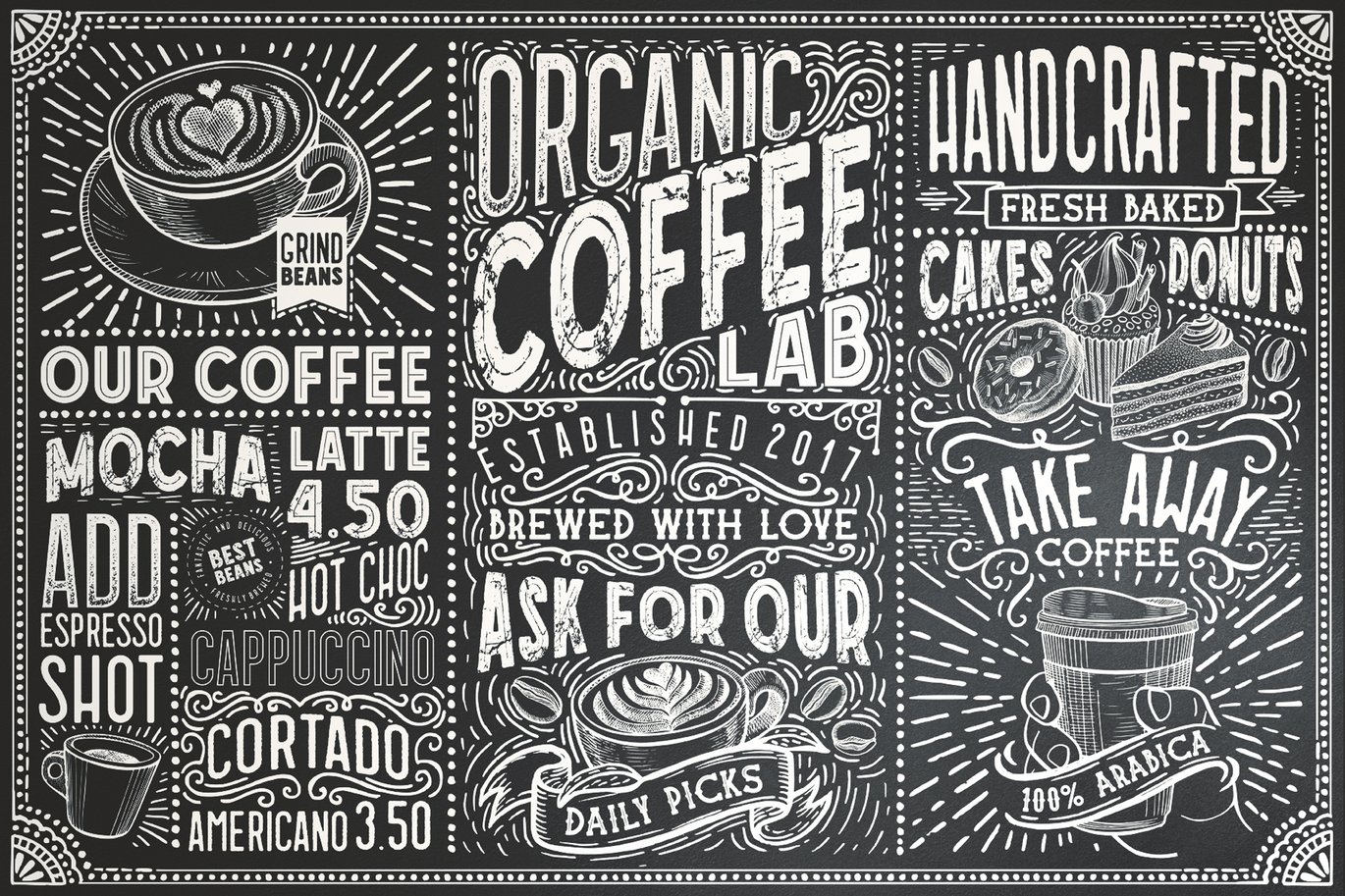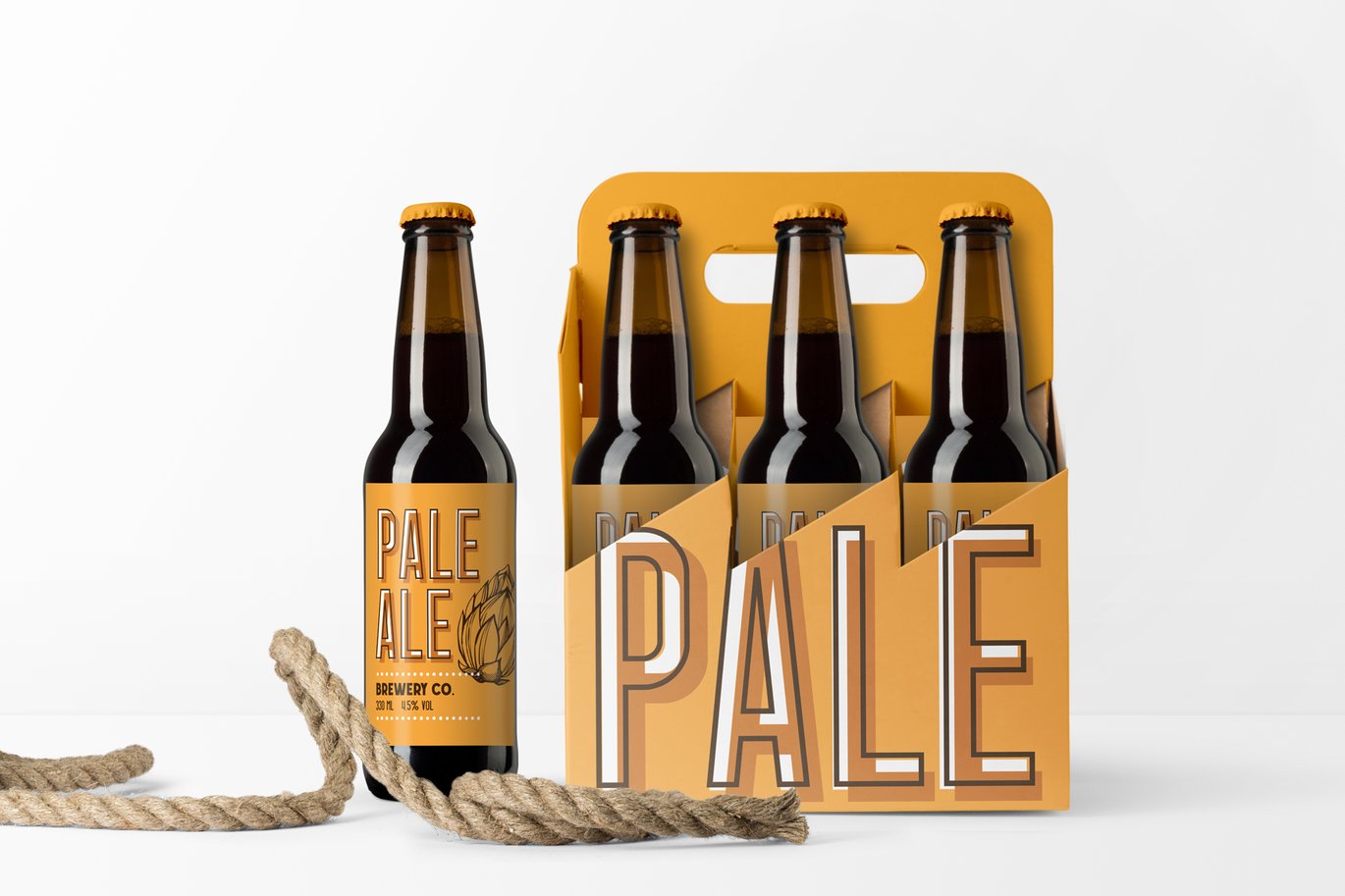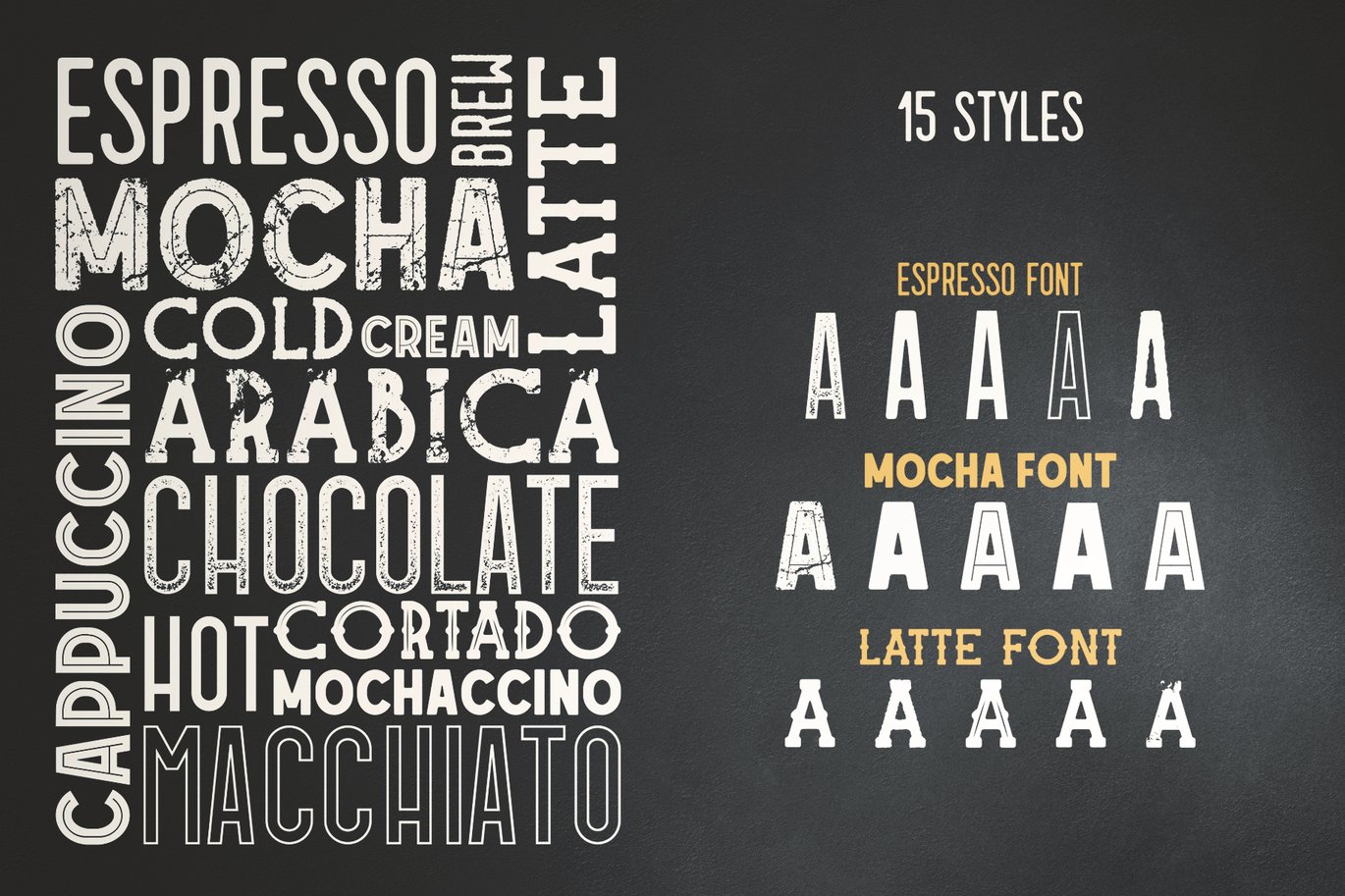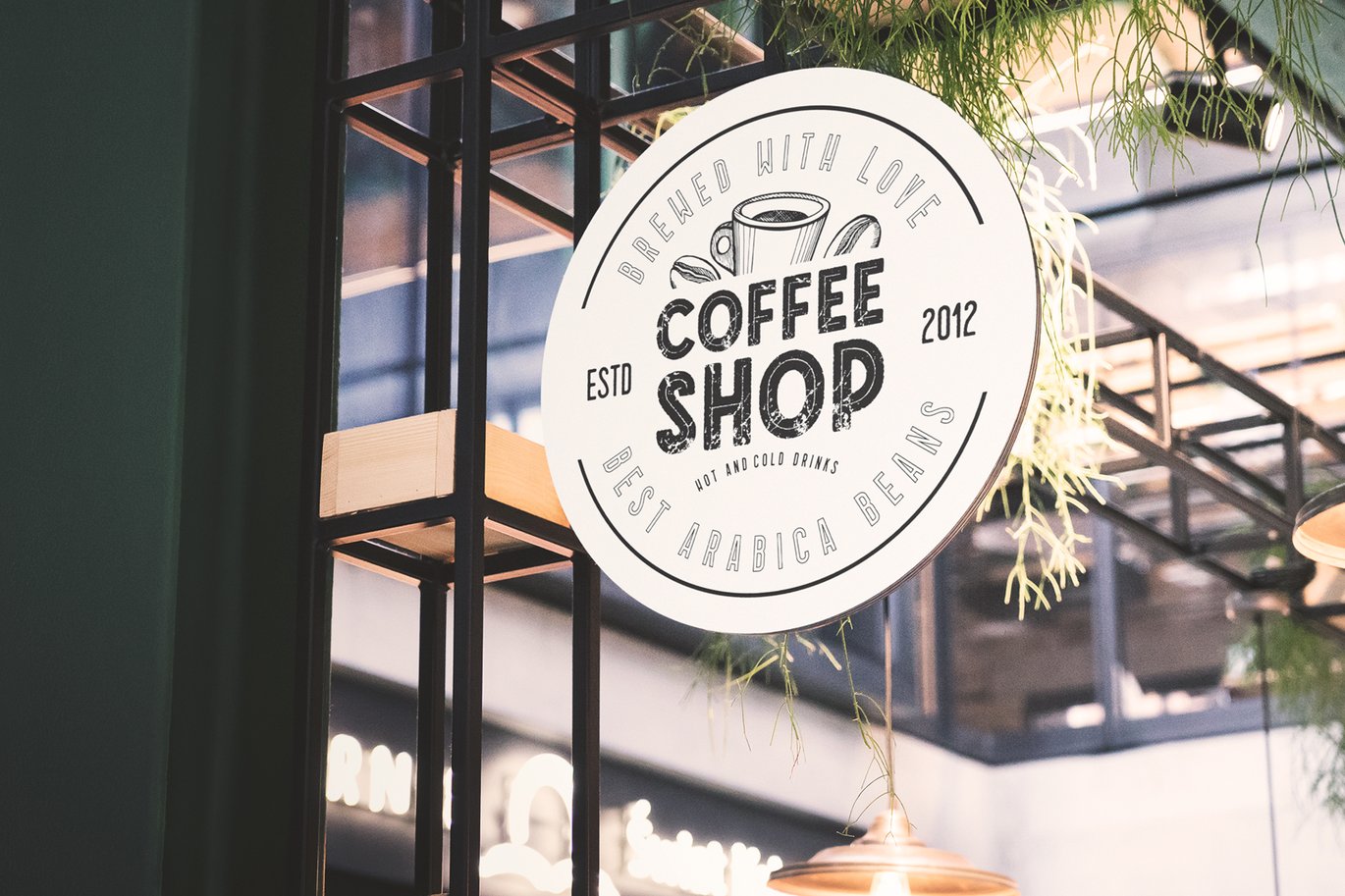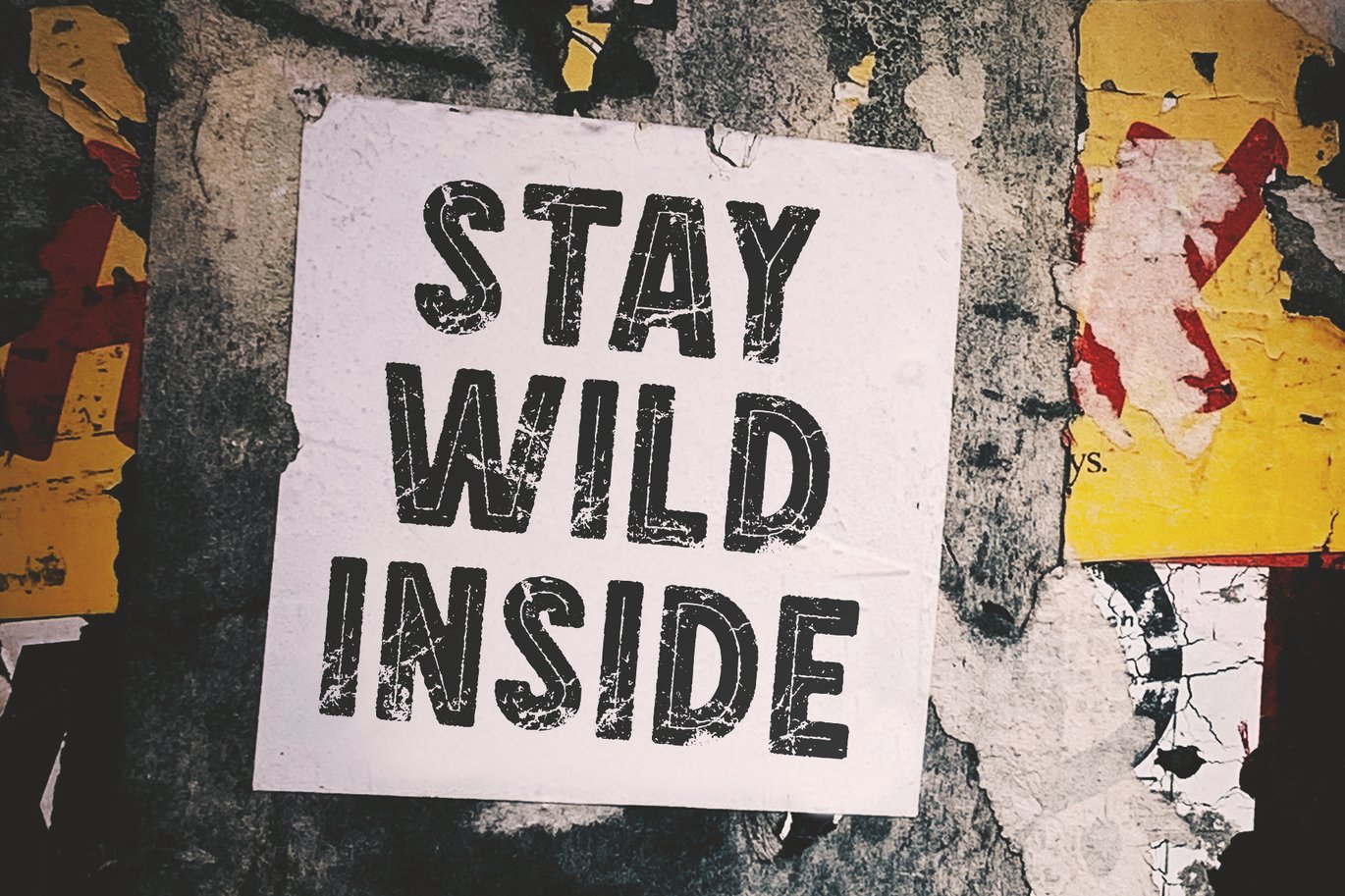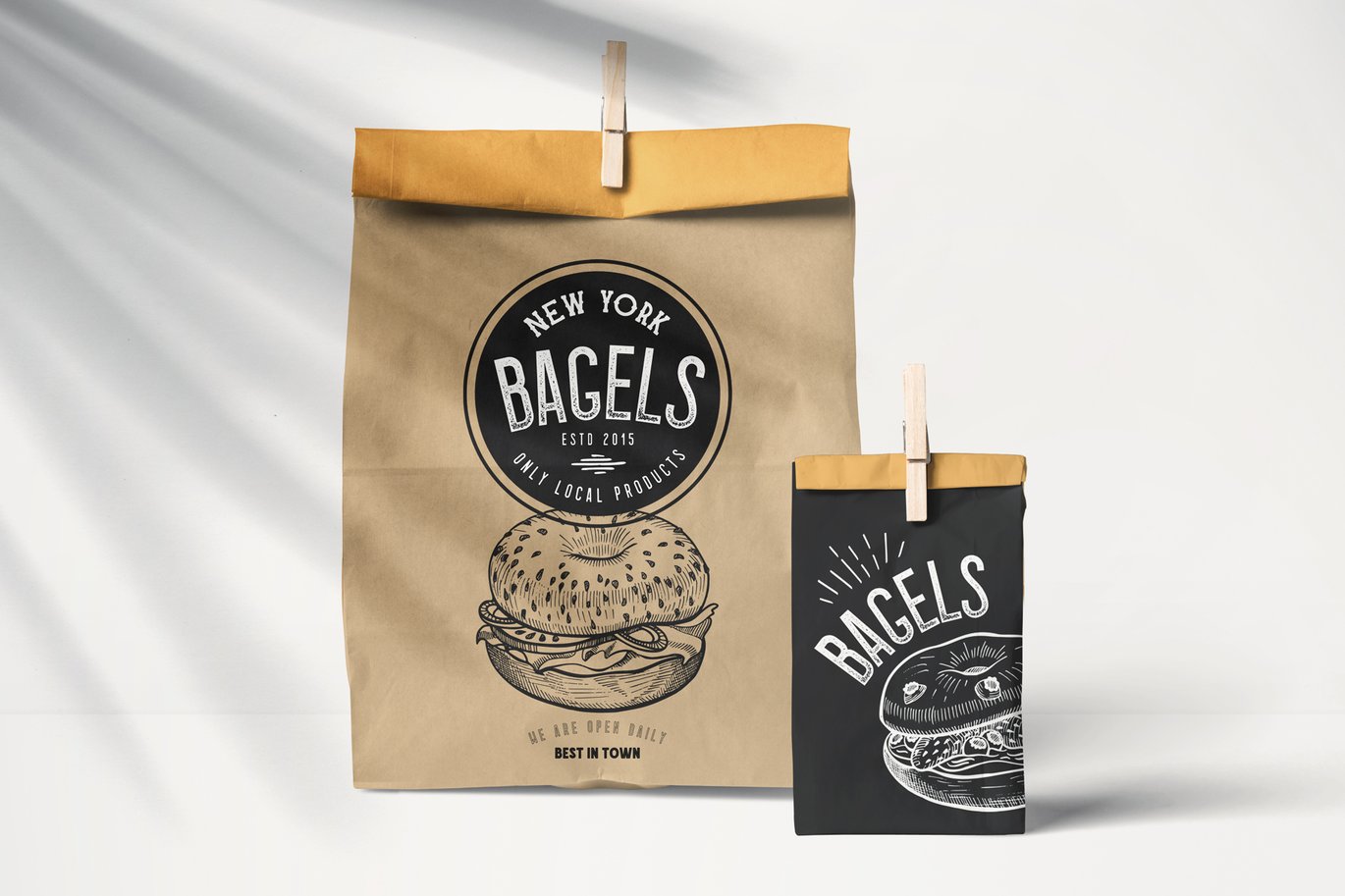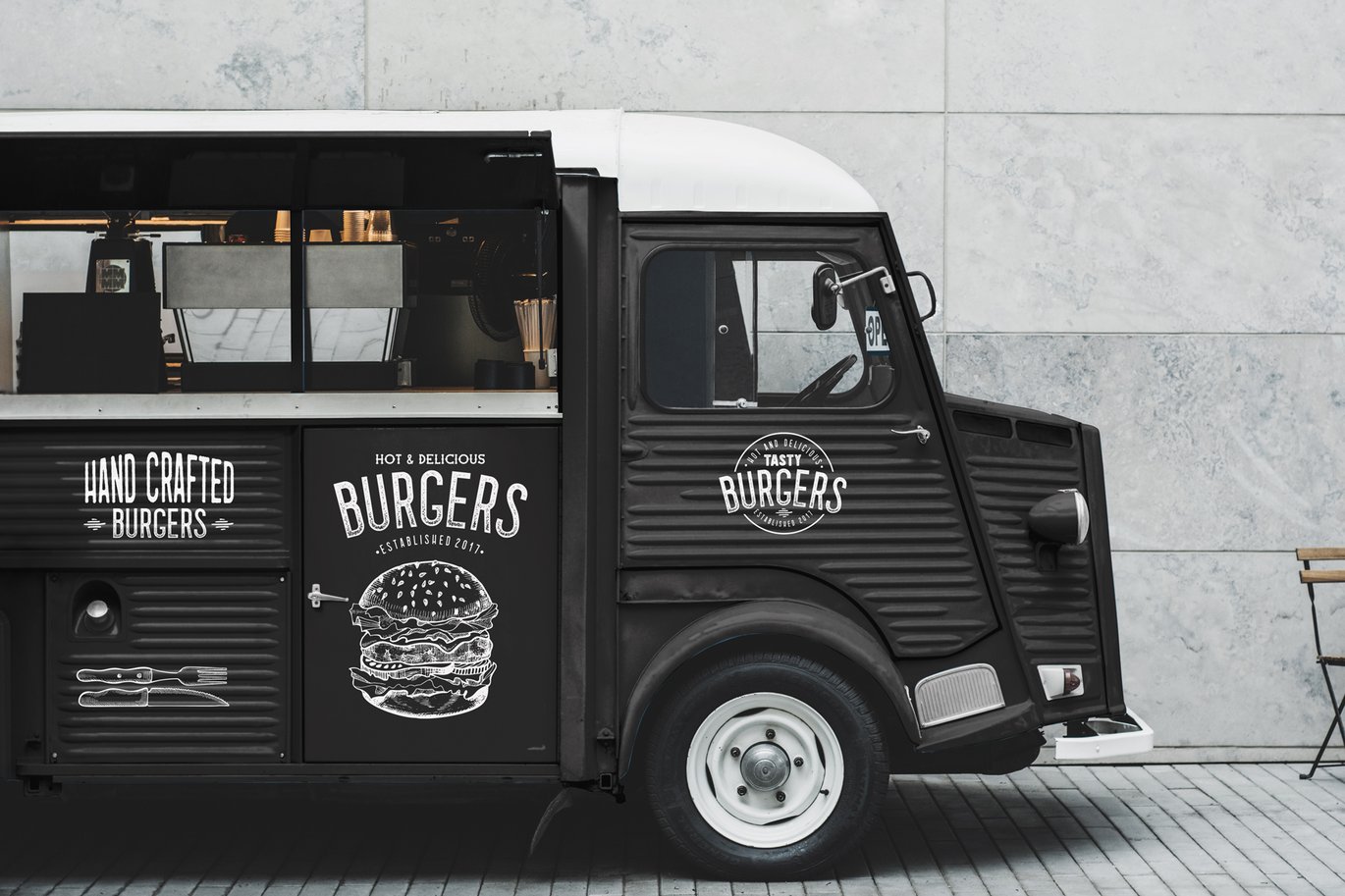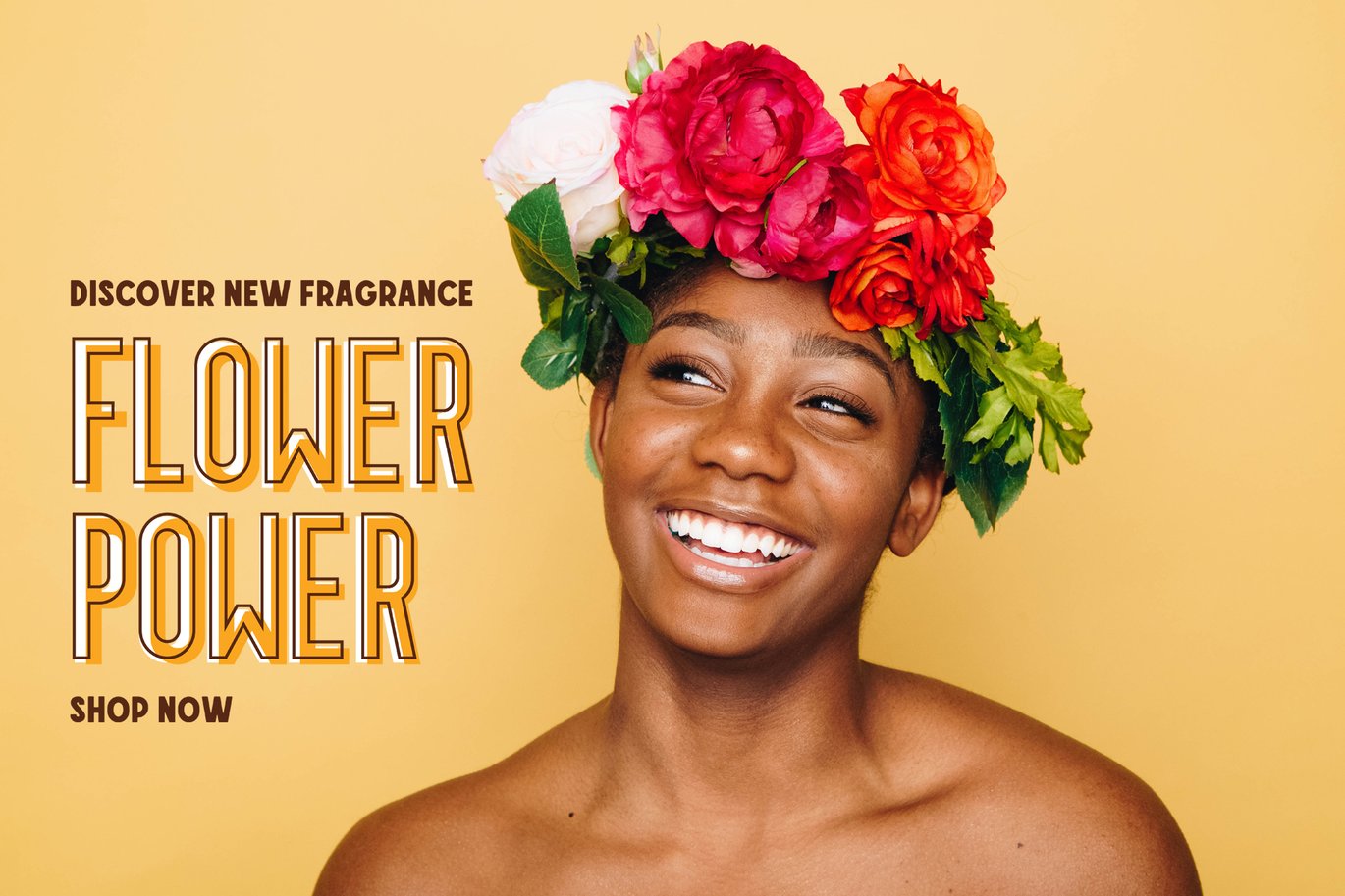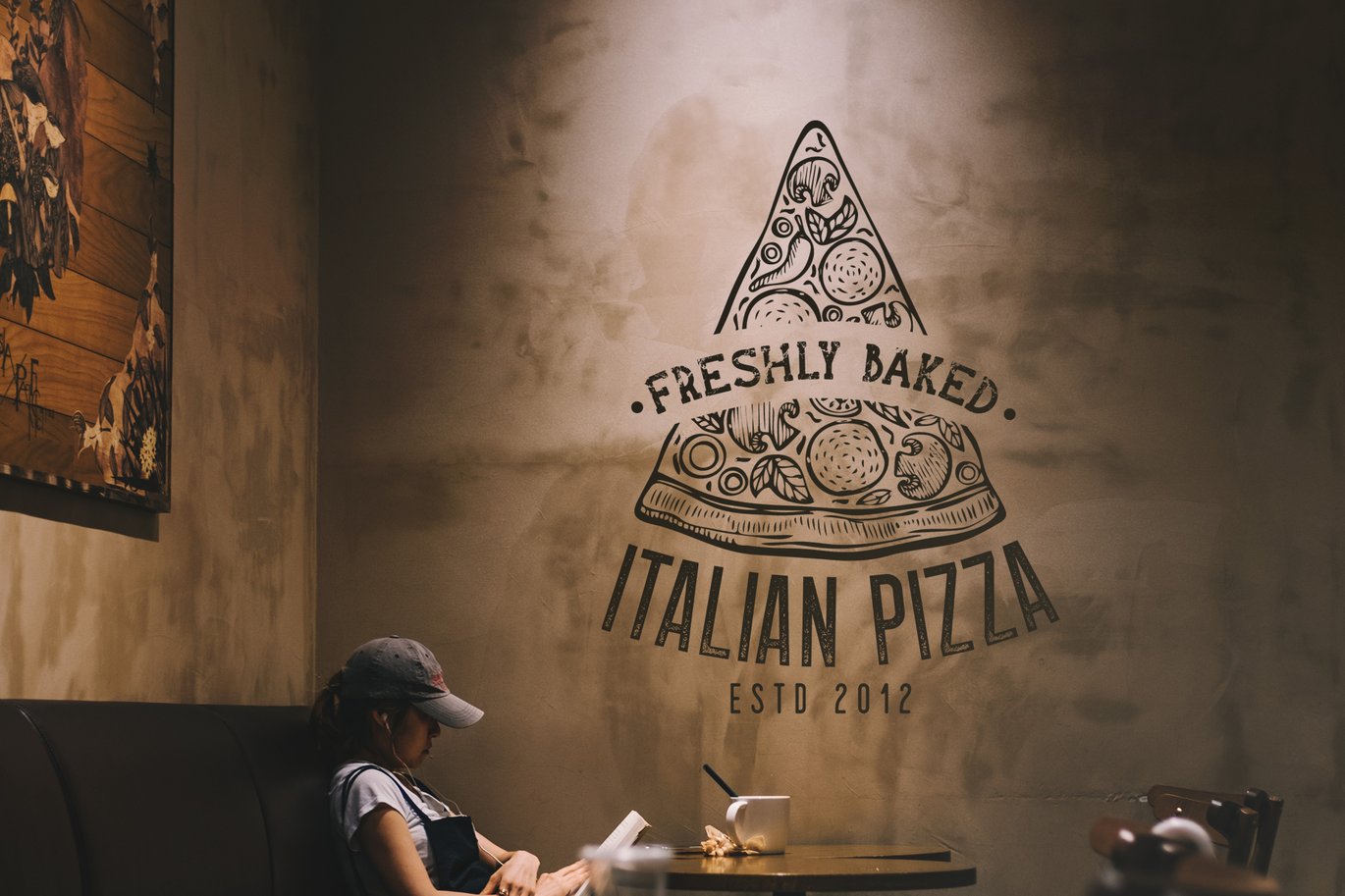
15 Fonts Coffee Lab Collection
Coffee Lab Font Collection – 15 Styles
Coffee Lab – a font collection of vintage, rough, rounded, outline, inline styles. Includes uppercase letters, punctuation, numbers, special characters, multilingual support.